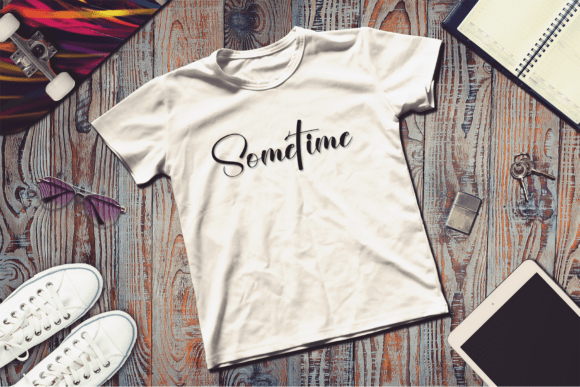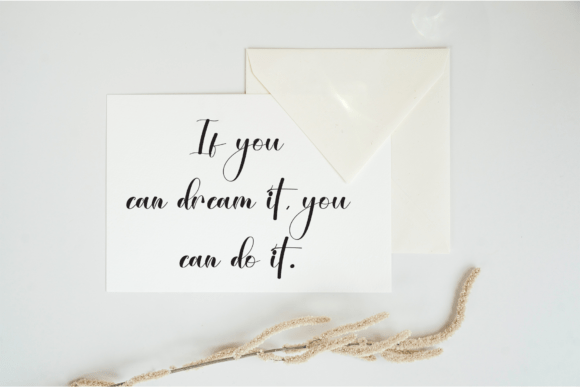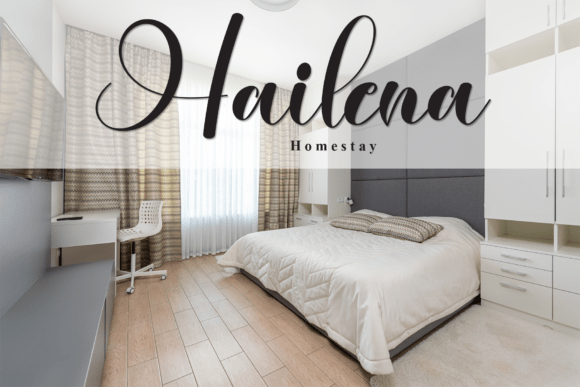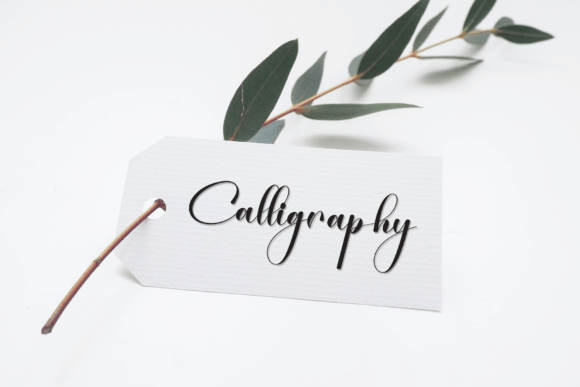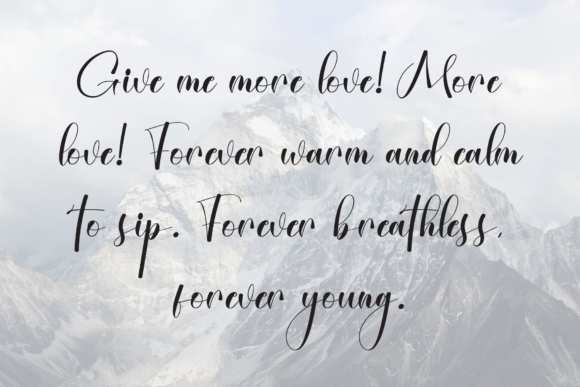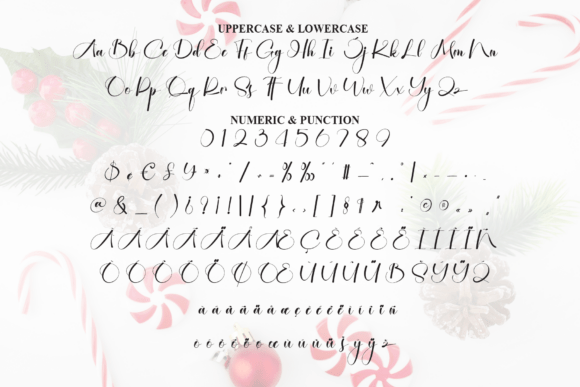
The Magic of Christmas Font: Elevate Your Designs with Festive Flair
It’s the most wonderful time of the year – and as designers, crafters, and creative hobbyists, we’re always on the lookout for that special something to make our projects shine. I still remember the time I was working on a Christmas-themed wedding invitation, struggling to find the perfect font that captured the essence of the season. The client wanted something elegant, yet playful; something that would make their guests feel like they’re unwrapping a gift. That’s when I discovered the Christmas Font – and it changed the game.
Unwrapping the Christmas Font: A First Look
Imagine having access to a font that’s not just a collection of letters, but a creative experience. The Christmas Font is designed to give you an extraordinary experience, with the latest style letters that are perfect for a variety of projects, from wall displays and wedding invitations to social media post logos, advertisements, product packaging, and more.
So, what do I love about the Christmas Font? 🤔
- ✨ Elegant and Versatile: The font is incredibly versatile, making it perfect for a wide range of projects, from elegant wedding invitations to bold advertising campaigns.
And, like any font, there are a few minor quirks to be aware of:
- ⚠️ Glyph Limitations: While the font comes with a wide range of glyphs, there might be some limitations when it comes to more specialized characters.
The Story Behind the Christmas Font
The Christmas Font was created by a team of designers who wanted to capture the magic of the holiday season in a single font. Inspired by vintage Christmas cards, snowflakes, and festive lights, they crafted a font that’s both elegant and playful. The result is a font that’s perfect for adding a touch of holiday cheer to any project.